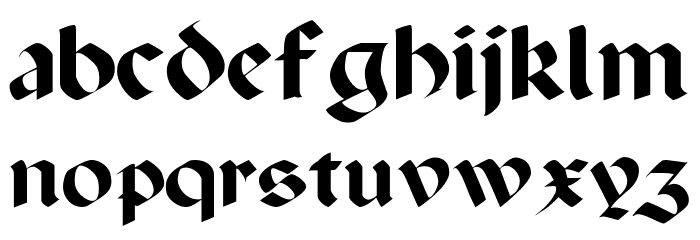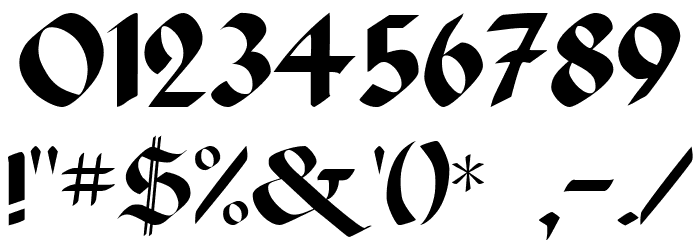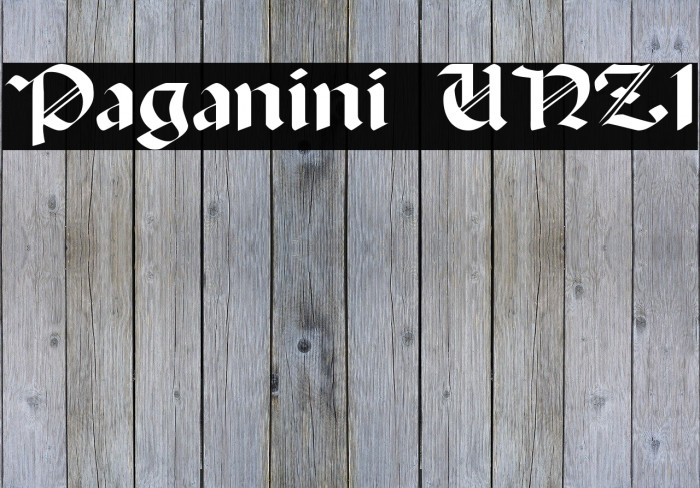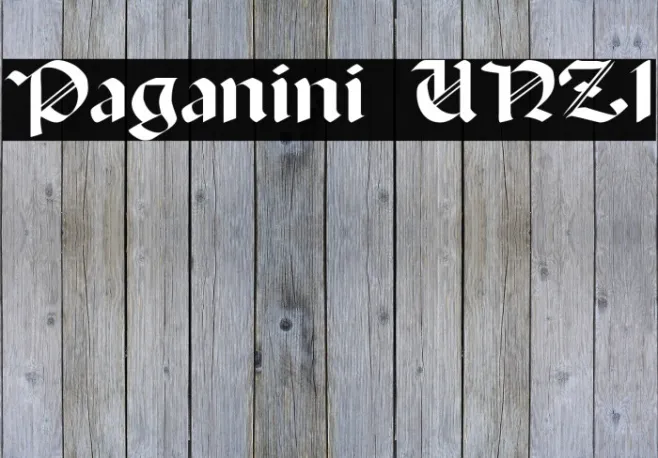
Paganini UNZ1 Font
This font exhibits a classic blackletter style, characterized by its intricate and ornate design. The uppercase letters feature sharp, angular lines with dramatic flourishes, while the lowercase letters maintain a consistent, bold appearance. The numerals are equally stylized, with a strong presence that complements the overall aesthetic. Special characters are designed with the same attention to detail, enhancing the font's decorative appeal. This typeface is reminiscent of traditional Gothic scripts, making it suitable for projects that require a historical or formal touch.
A bold, ornate blackletter font with dramatic flourishes and a classic Gothic style.
- Proposed Projects: Ideal for wedding invitations, certificates, historical documents, or branding that requires a vintage or formal look.
- Category: Blackletter
- Overall Style: Vintage
- Use Case: Logos, Headlines, Decorative text